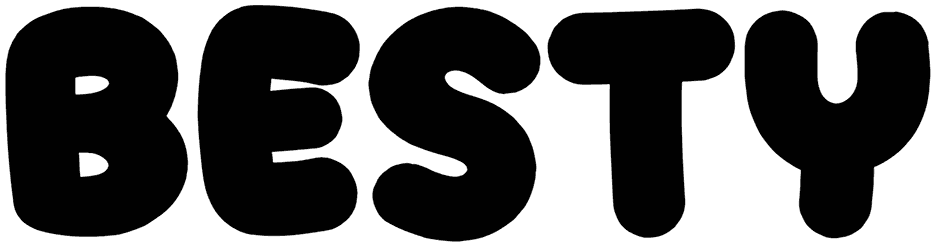
Besty Font
Putting forward to take a look at Besty, a cartoon font with cool chubby rounded letters that can turn to account as a fancy font to lay out various themes such as children’s compositions, camping, animation, storybook, etc.
Although it doesn’t support lowercase letters, it will be prominent in many cases to turn them into shining ones. Just click on it and let it run well with any case. Check out our stock to uncover more cartoon fonts!